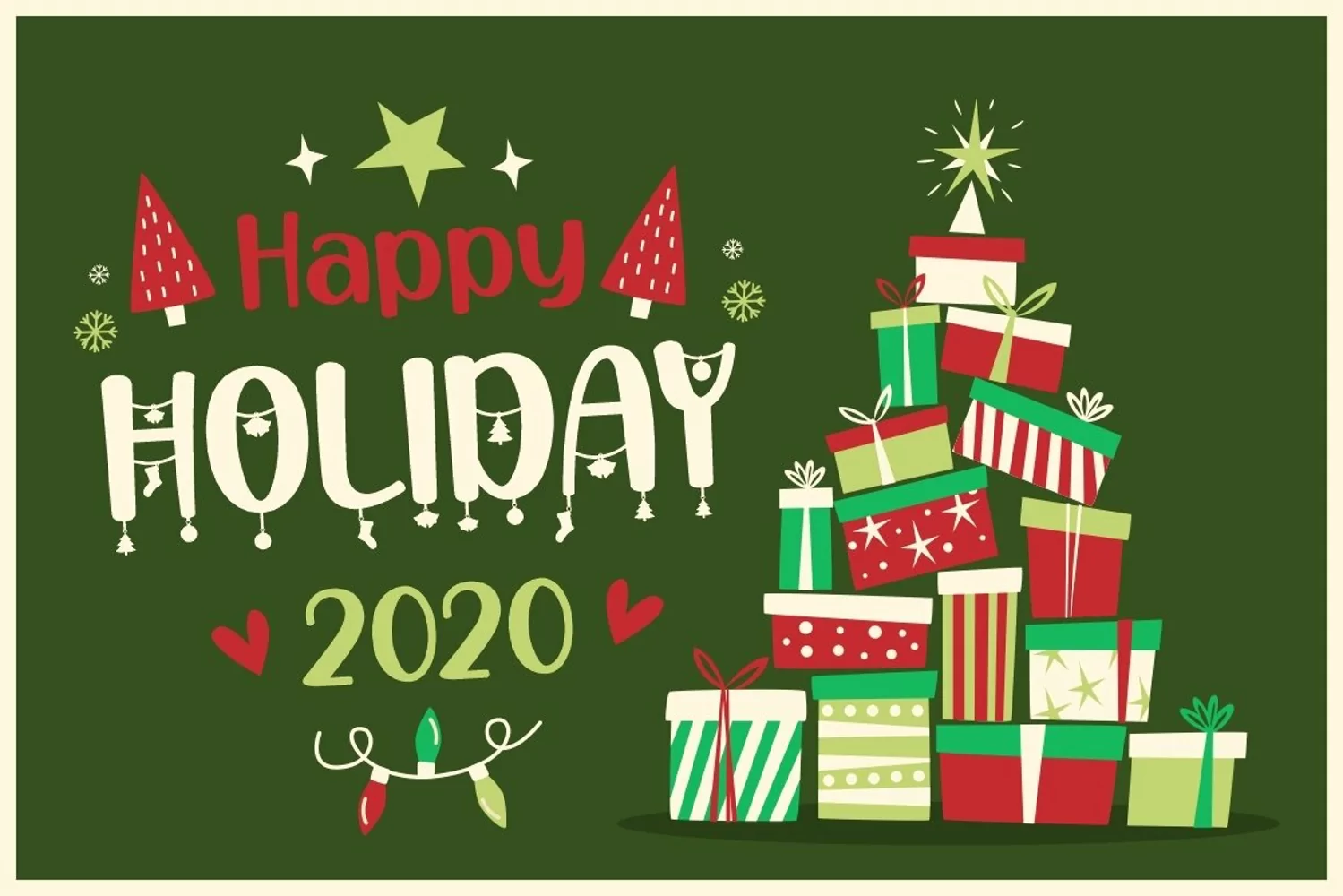
Happy Christmas Party - Xmas Font
Happy Christmas Party
Happy Christmas Party is a playful and quirky display font. I made this font especially for Christmas and holidays. This font has 5 decoration versions: regular, decor, deer, snow and star. These decorations are related to Christmas decorations, making this font the perfect fit for any Christmas-themed activity / project.
Happy Christmas Party perfect for crafter, gift, tshirt, card event, anniversary, birthday,greeting cards, logotype, branding, poster, packaging, stationery, website, and any other projects requiring a handwritten and luxurious touch.